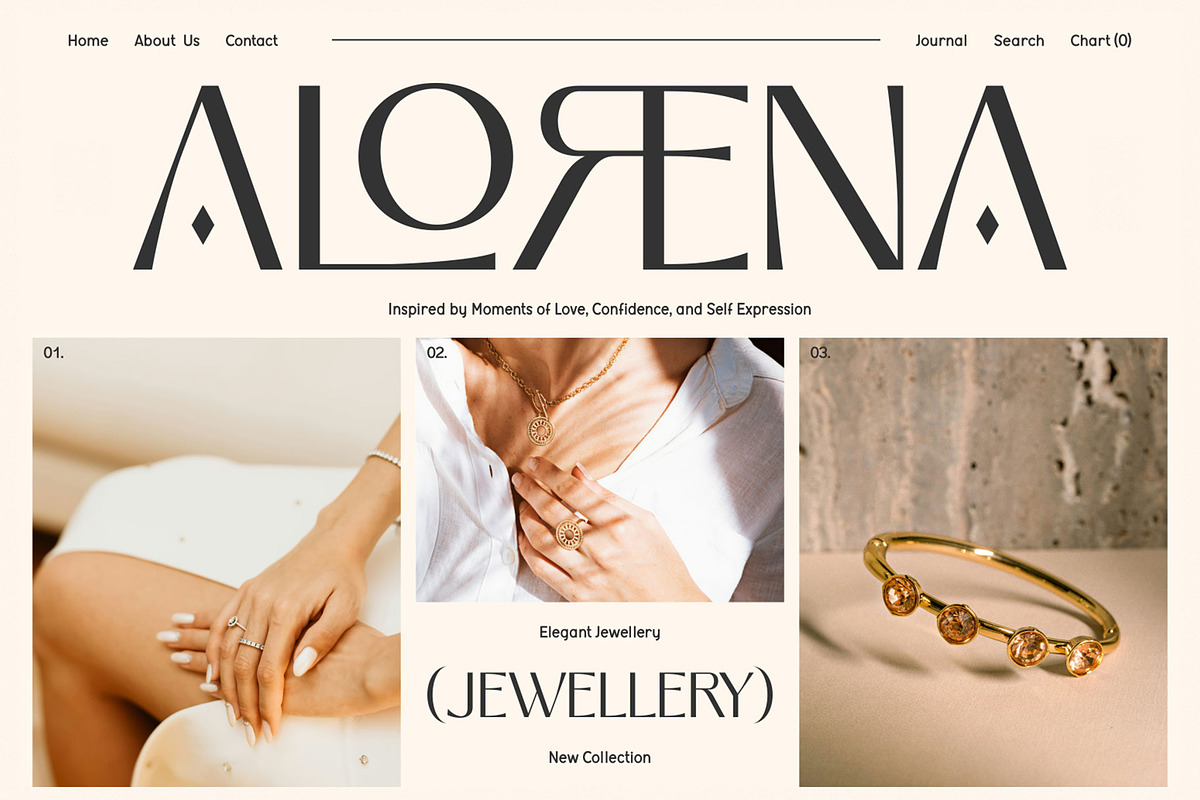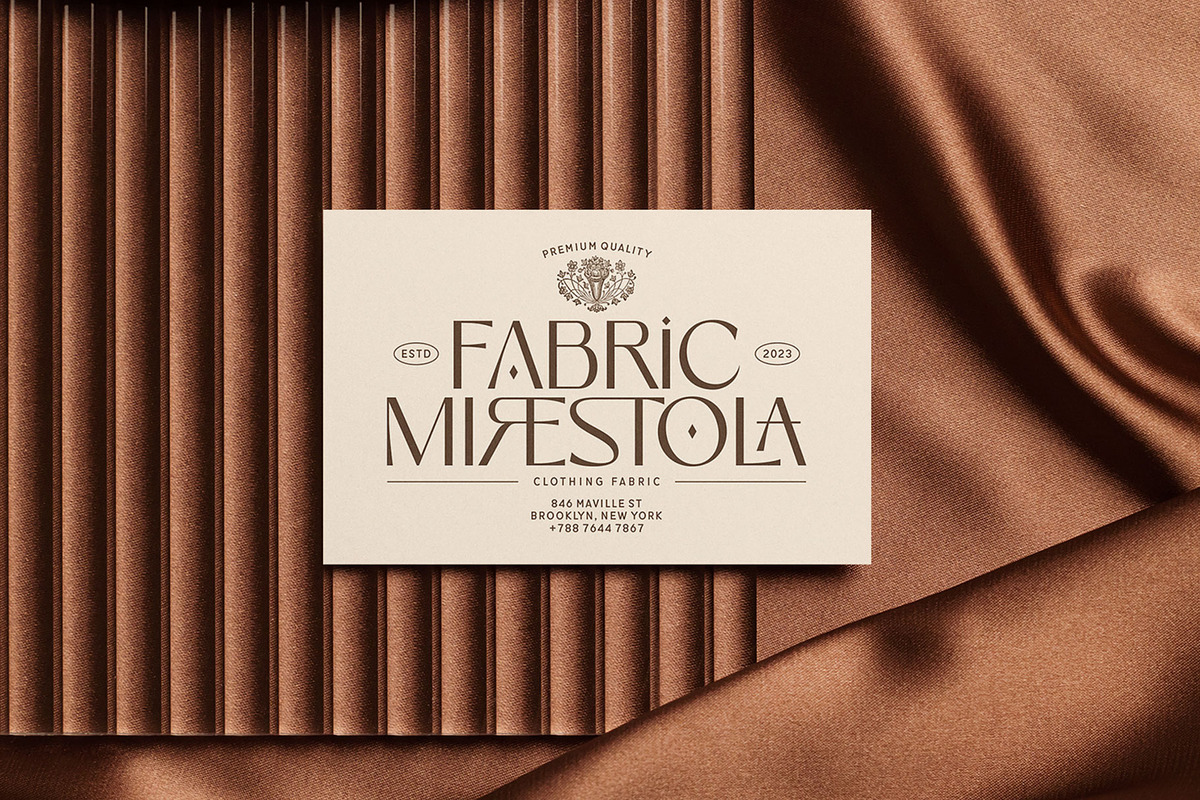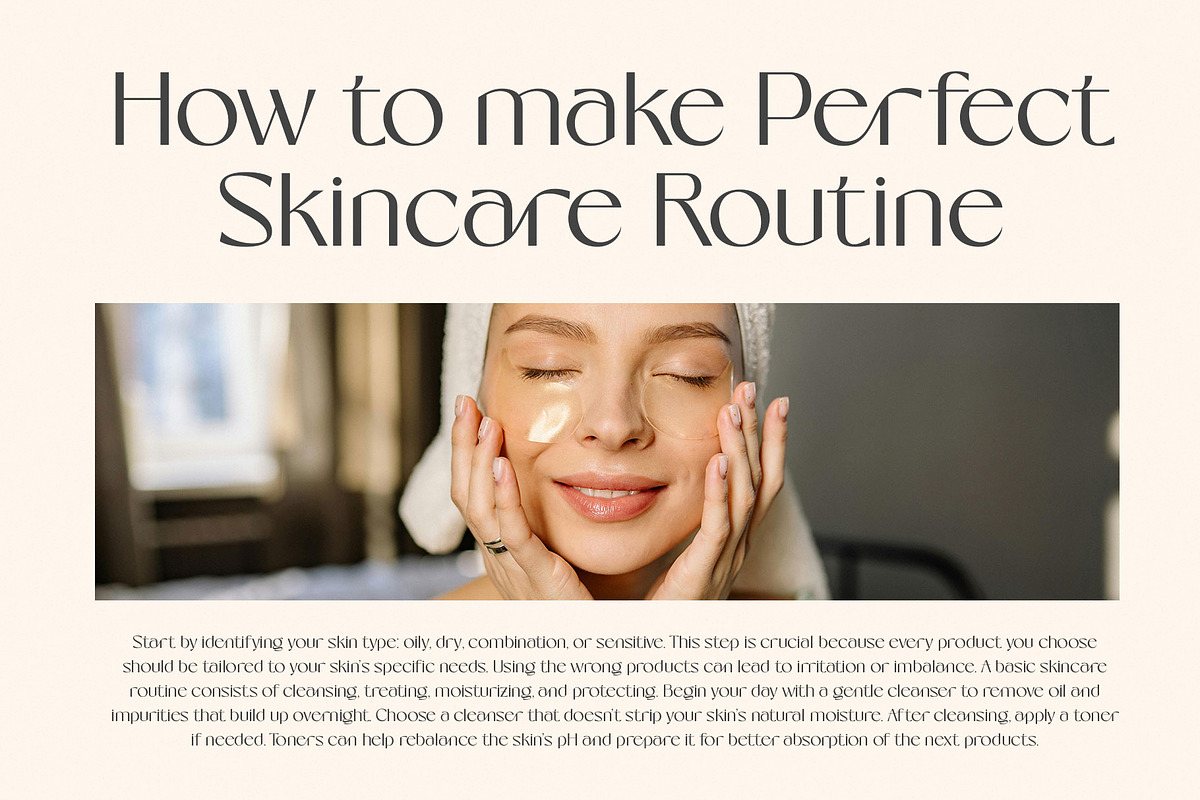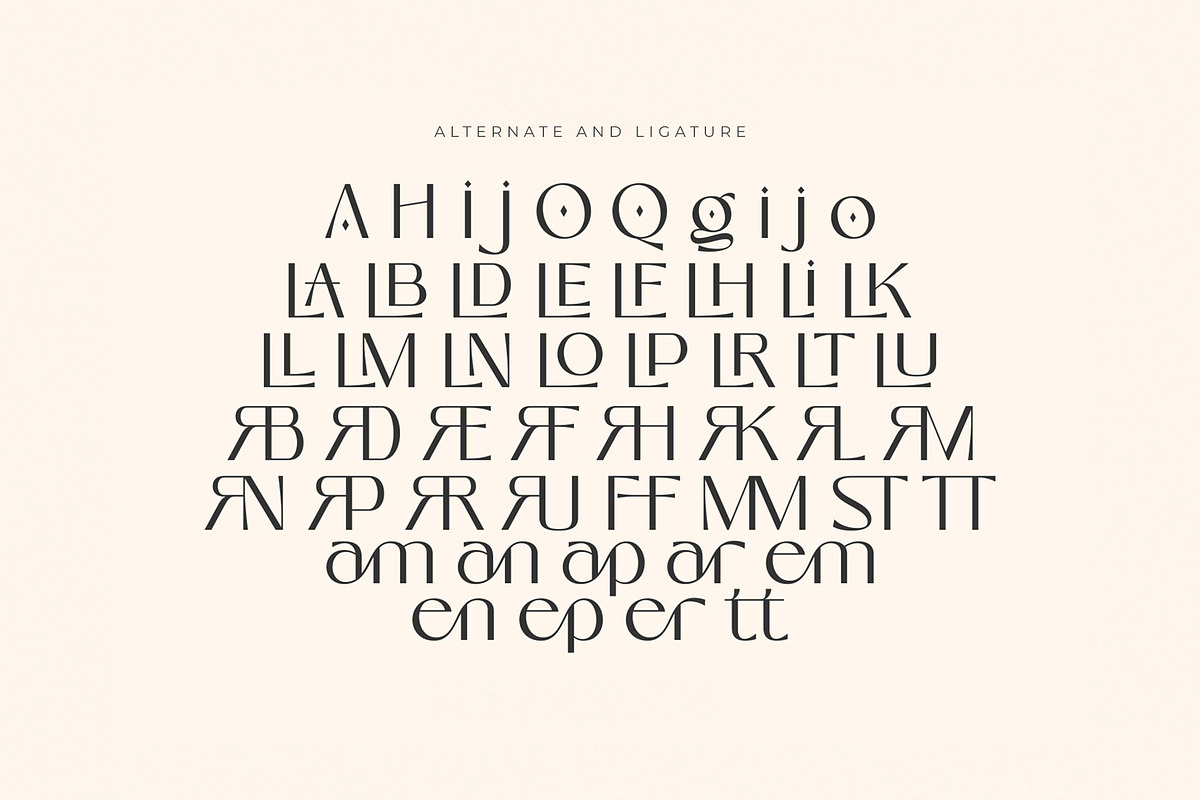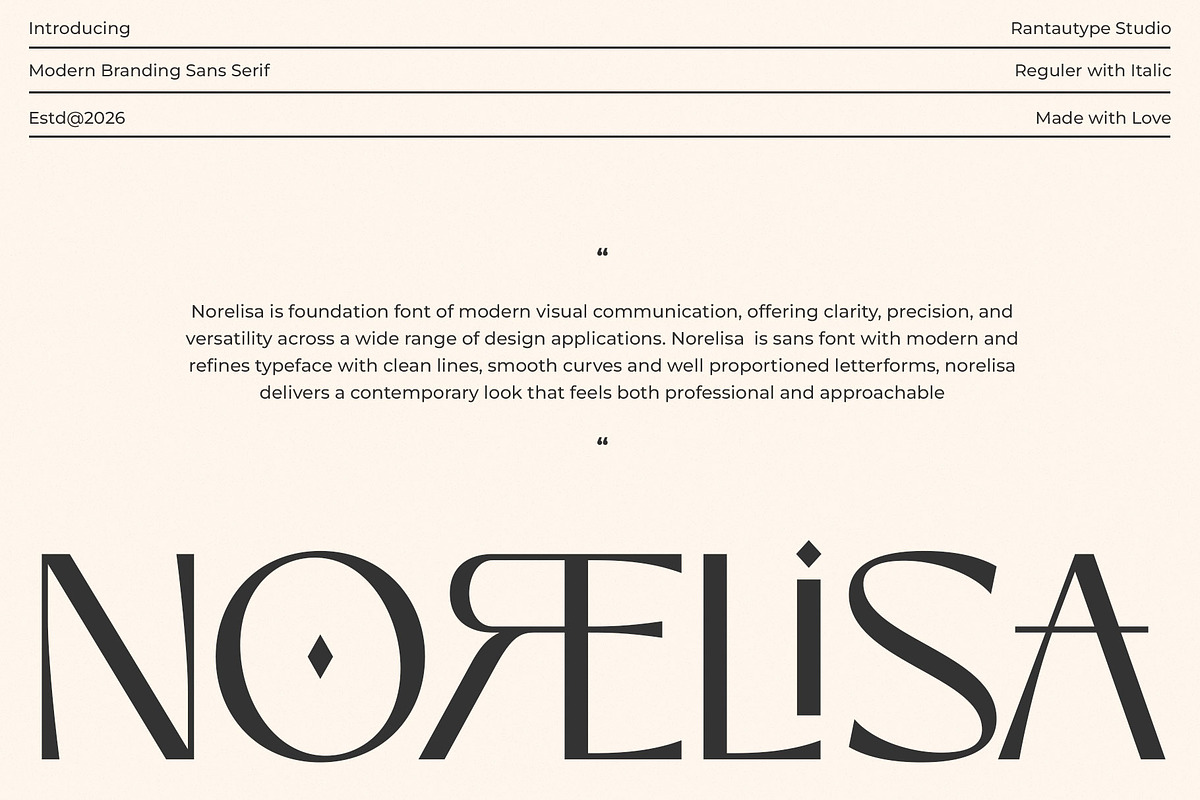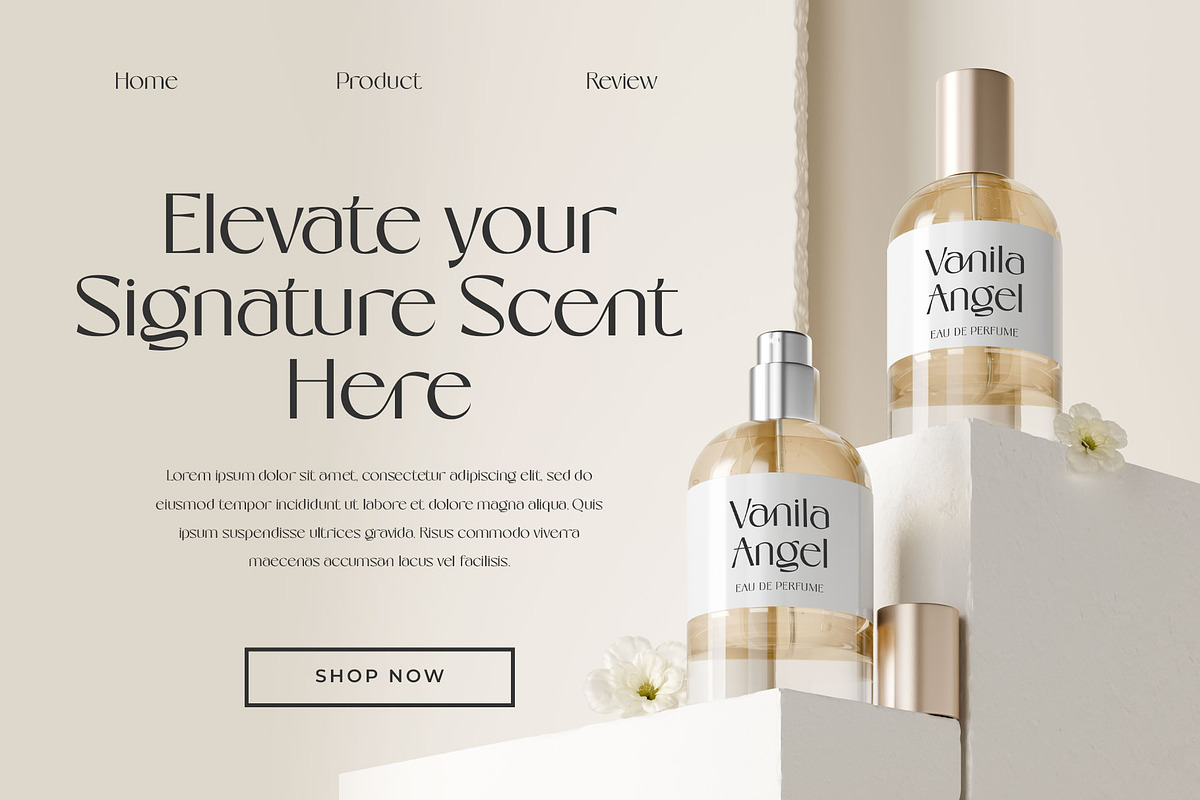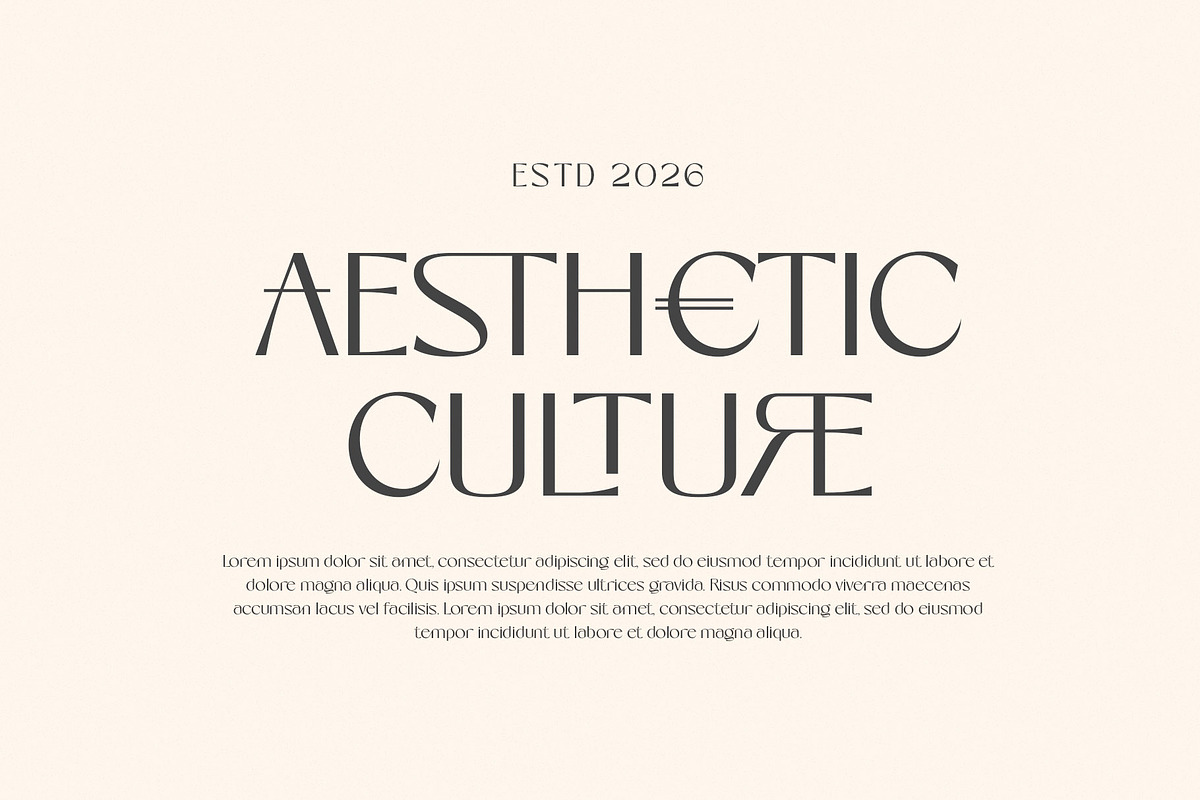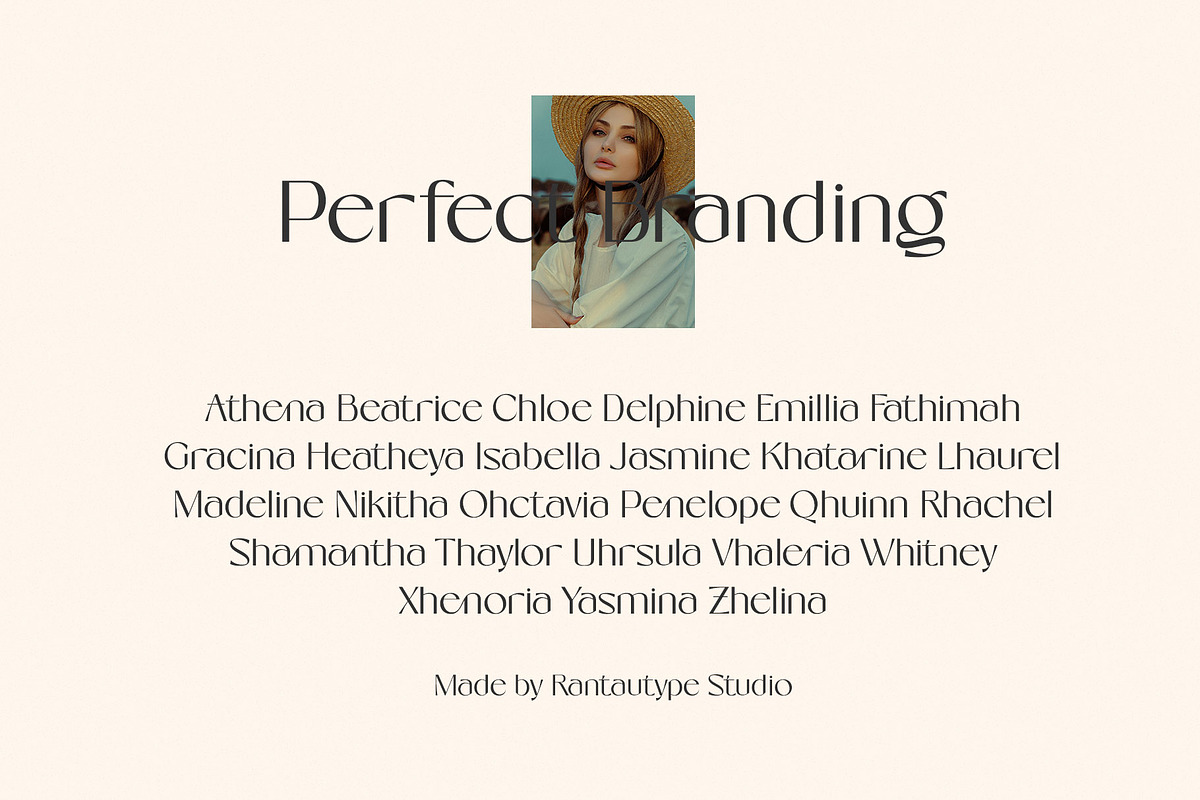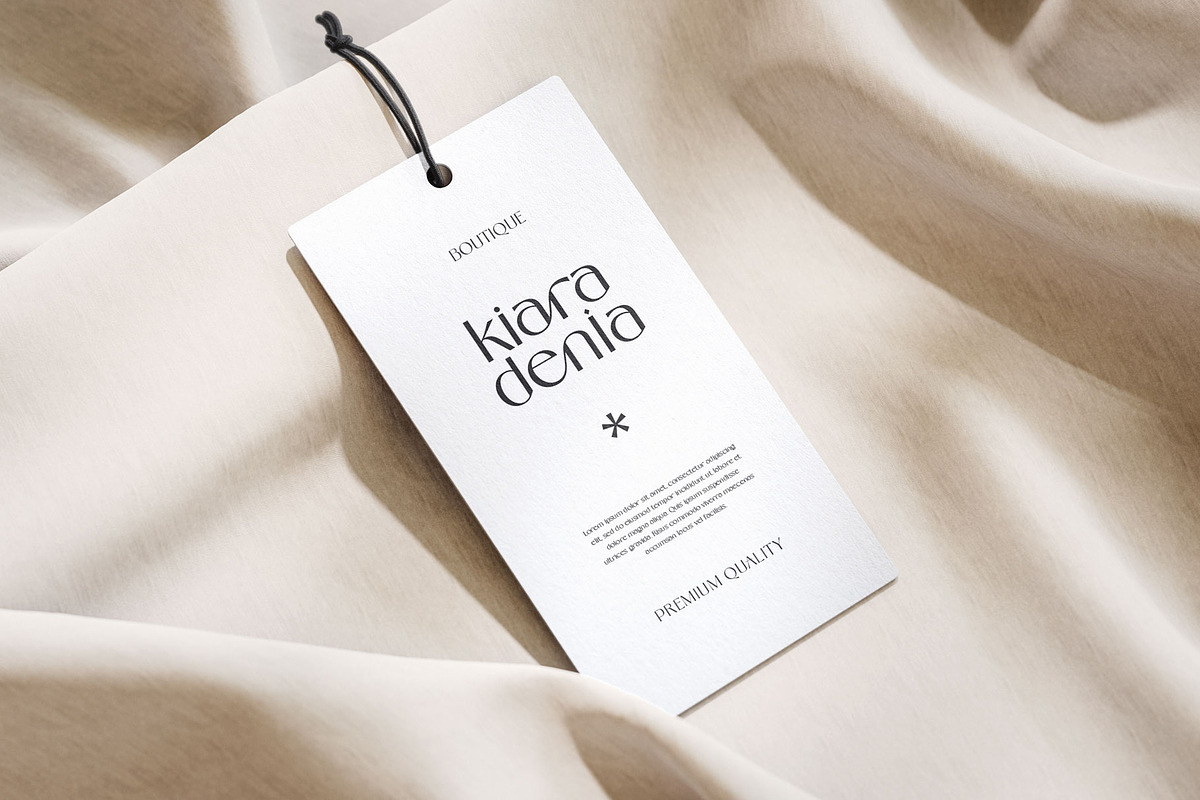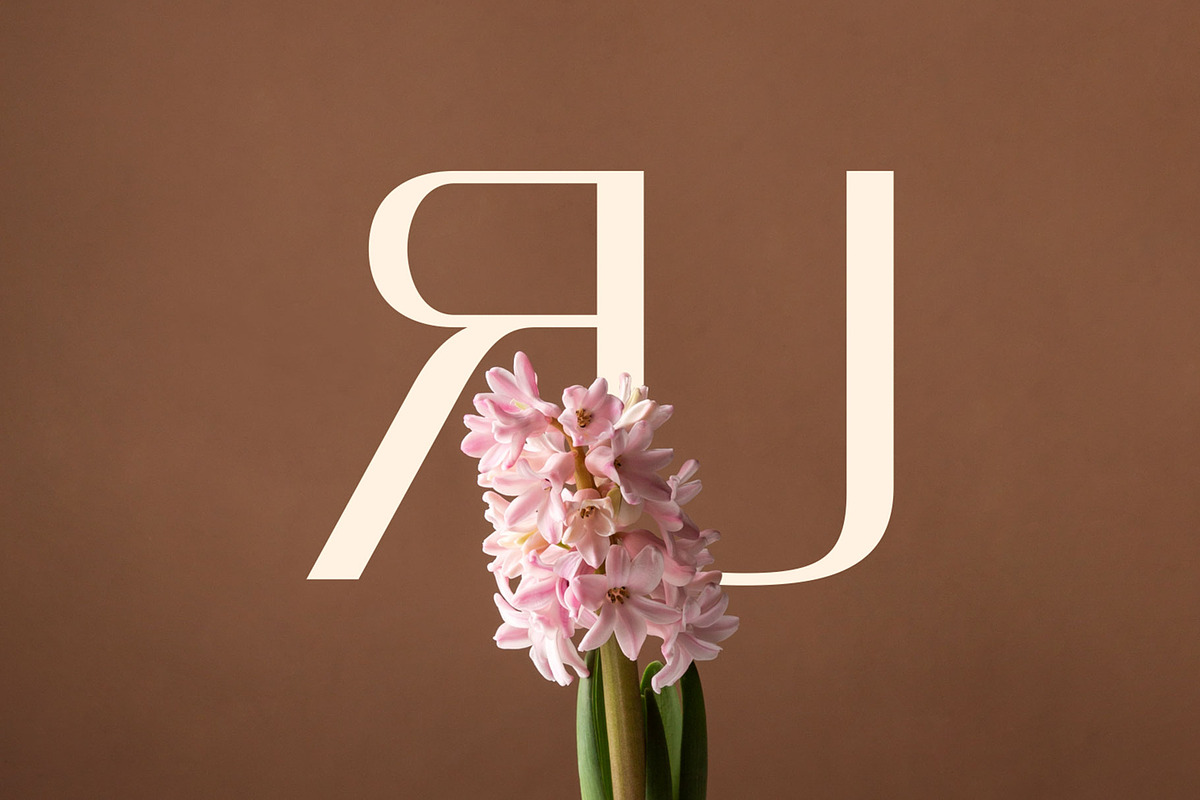
Norelisa Modern Branding Sans Font
Norelisa is foundation font of modern visual communication, offering clarity, precision, and versatility across a wide range of design applications. Norelisa is sans font with modern and refines typeface with clean lines, smooth curves and well proportioned letterforms, norelisa delivers a contemporary look that feels both professional and approachable.
Norelisa is a perfectly choice for any creative endeavor, creating, modern, lifestyle design such as logotype, title, cover, branding, invitations, wedding designs, display and magazine, social media posts, advertisements, printed quotes, product packaging, corporate brand, product designs, labels, photography, watermarks, special events and any other project with modern touch.
Standart Glyphs
Numberial and Functional
Alternate and ligature